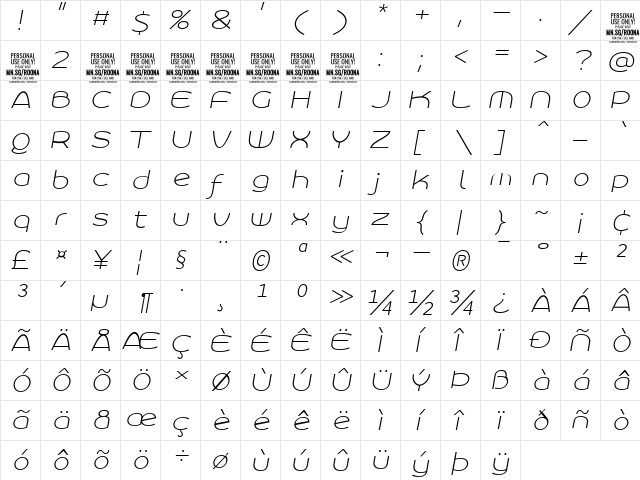
Roona Sans Thin PERSONAL Italic
Design Context for Roona Sans Thin PERSONAL Typeface
Roona Sans Thin PERSONAL is a composed and adaptable typeface that performs quietly and consistently across a wide range of design contexts. The dynamic lean of this cut emphasises speed and emphasis in any layout. Its slender proportions lend an understated elegance to any composition.
Pro Tip: Use Roona Sans Thin PERSONAL for emphasis, pull quotes, and subheadings where its slanted energy can add rhythm to the layout.